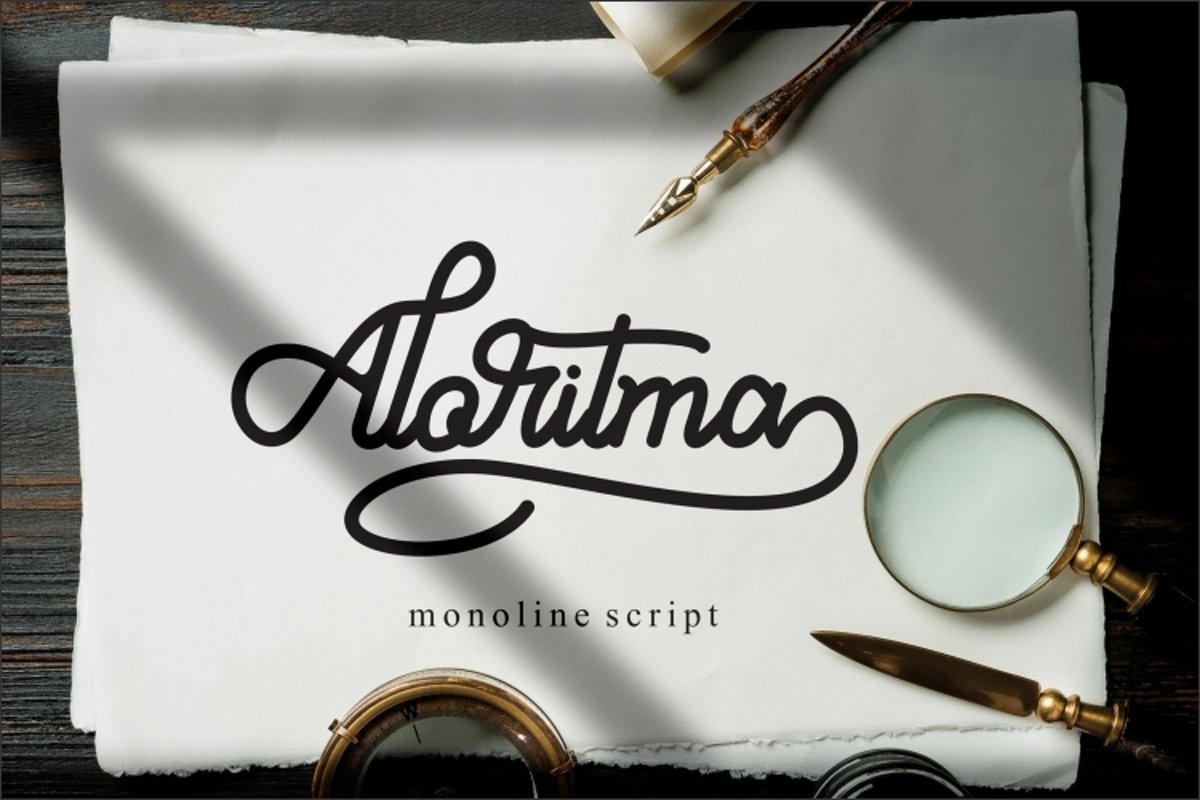
Aloritma - Monoline Script
Aloritma
Aloritma  a monoline font. This font
will looks awesome and amazing in many way to your latest project.
Aloritma is perfect for many different
project such as logos & branding, invitation, stationery, wedding
designs, social media posts, advertisements, product packaging, product
designs, label, photography, watermark, special events or anything.
- Character set A-Z
- Character set a-z
- Support multilanguage glyphs